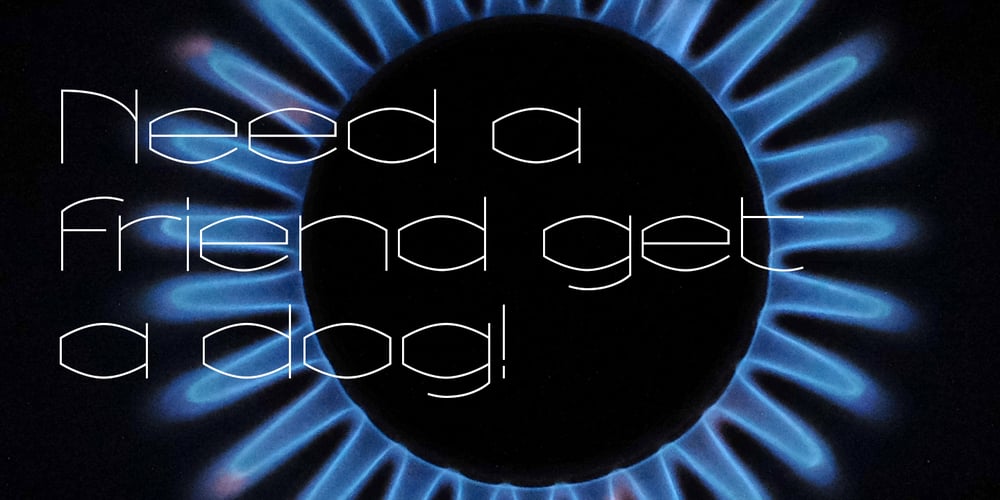
AT Move Bombola Font Family was designed by André Toet and published by André Toet Design. AT Move Bombola contains 3 styles and family package options. BOMBOLA is actually based on the shape of containers used by the Italians in remote areas. Furthermore the shape of BOMBOLA will be the base for a forthcoming designprogramme in the field of Furniture, Textiles and more. Concept/Art Direction/Design: André Toet © 2017